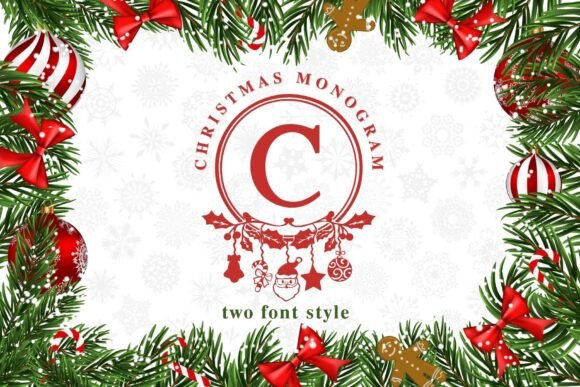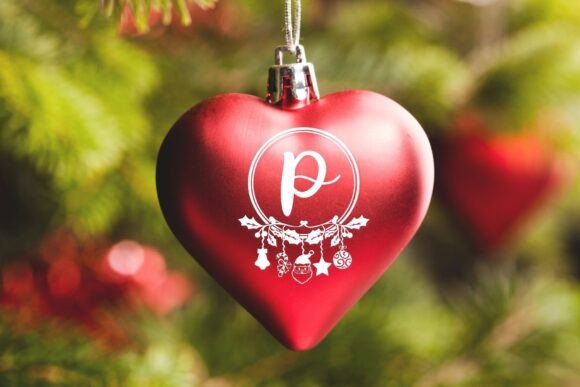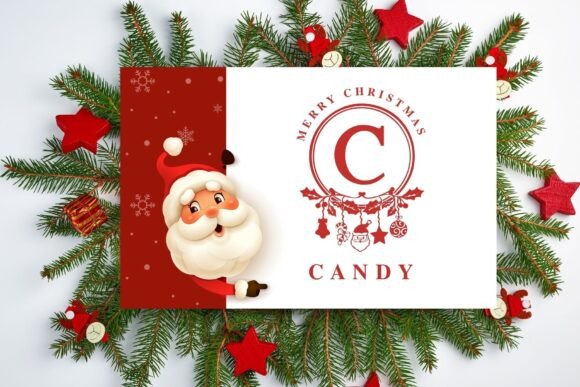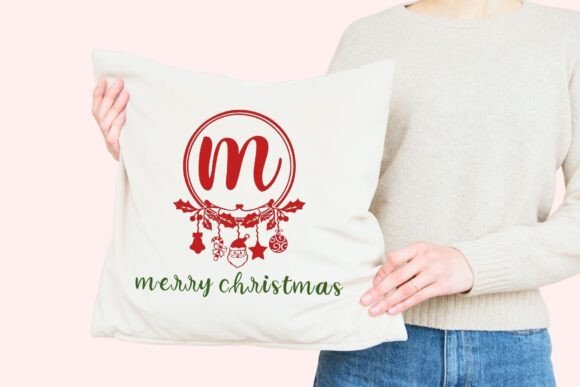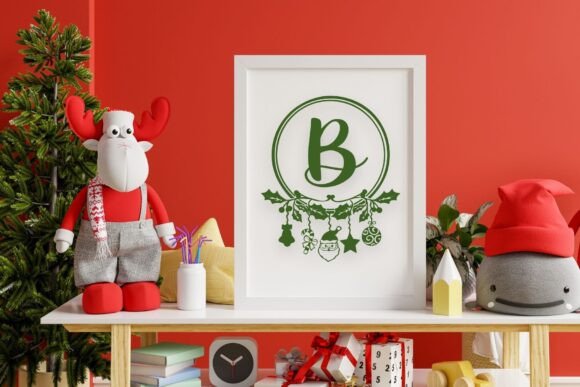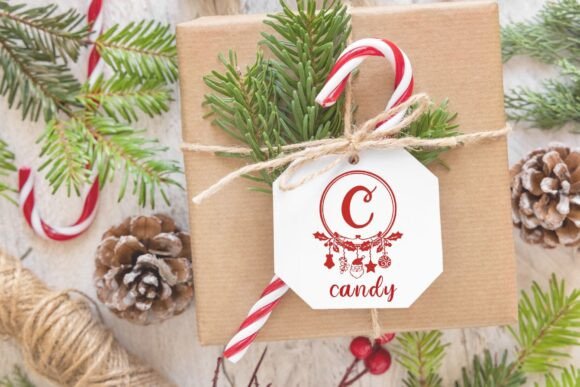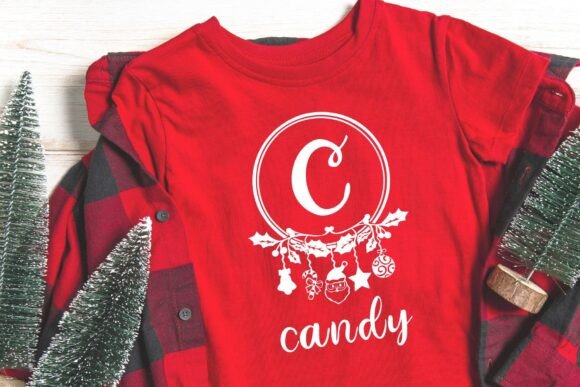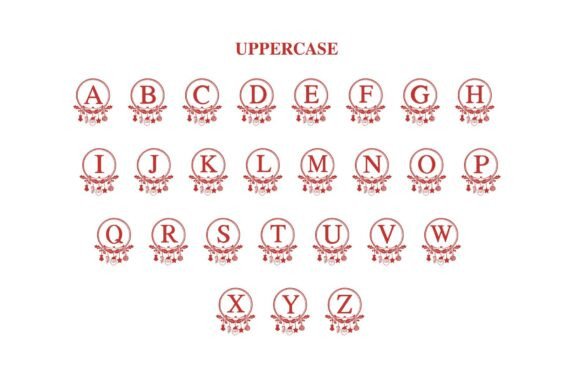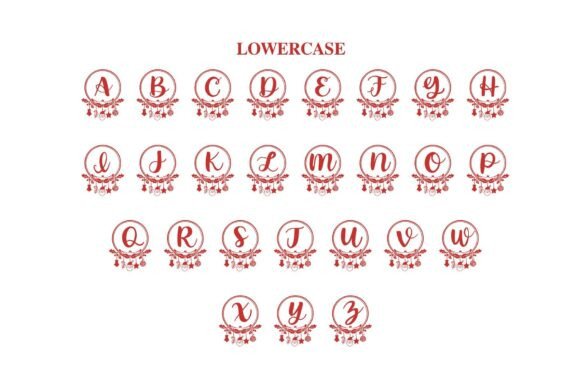
Christmas Monogram Font
Christmas is a fun and festive monogram font designed for the holiday season. Its decorative style features elegant, playful letters with Christmas-themed details, making it perfect for creating personalized holiday cards, invitations, and festive designs.